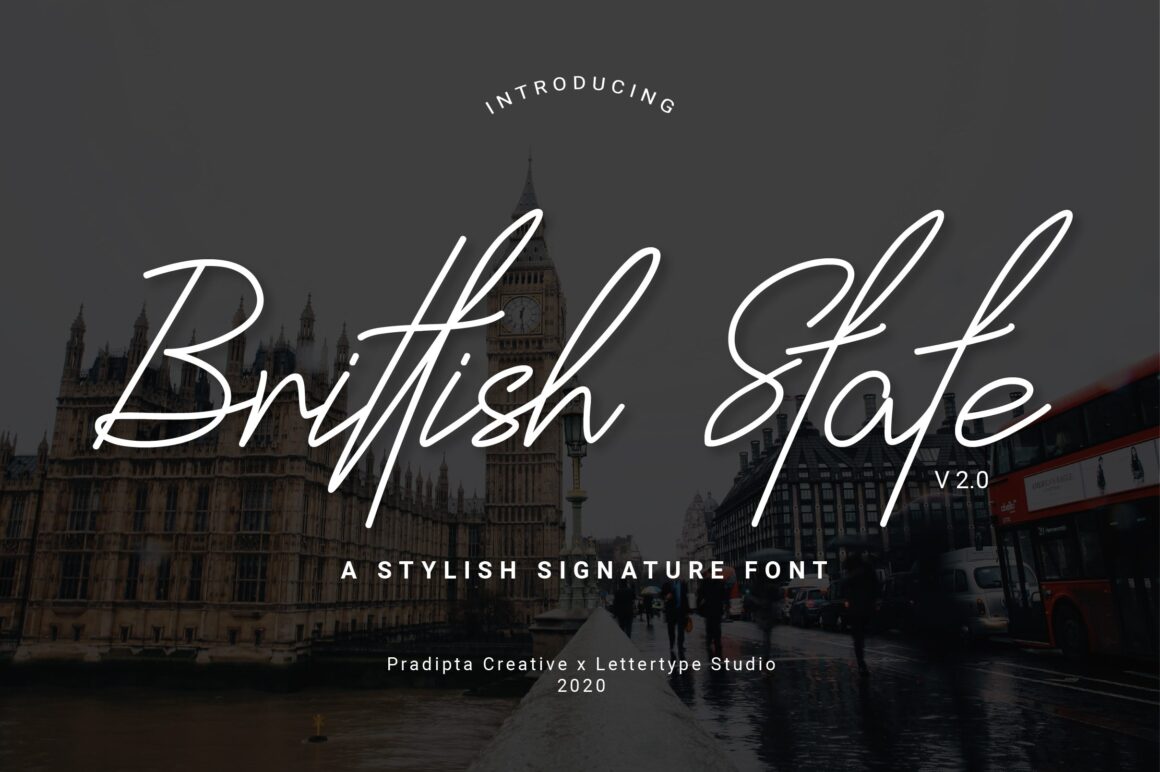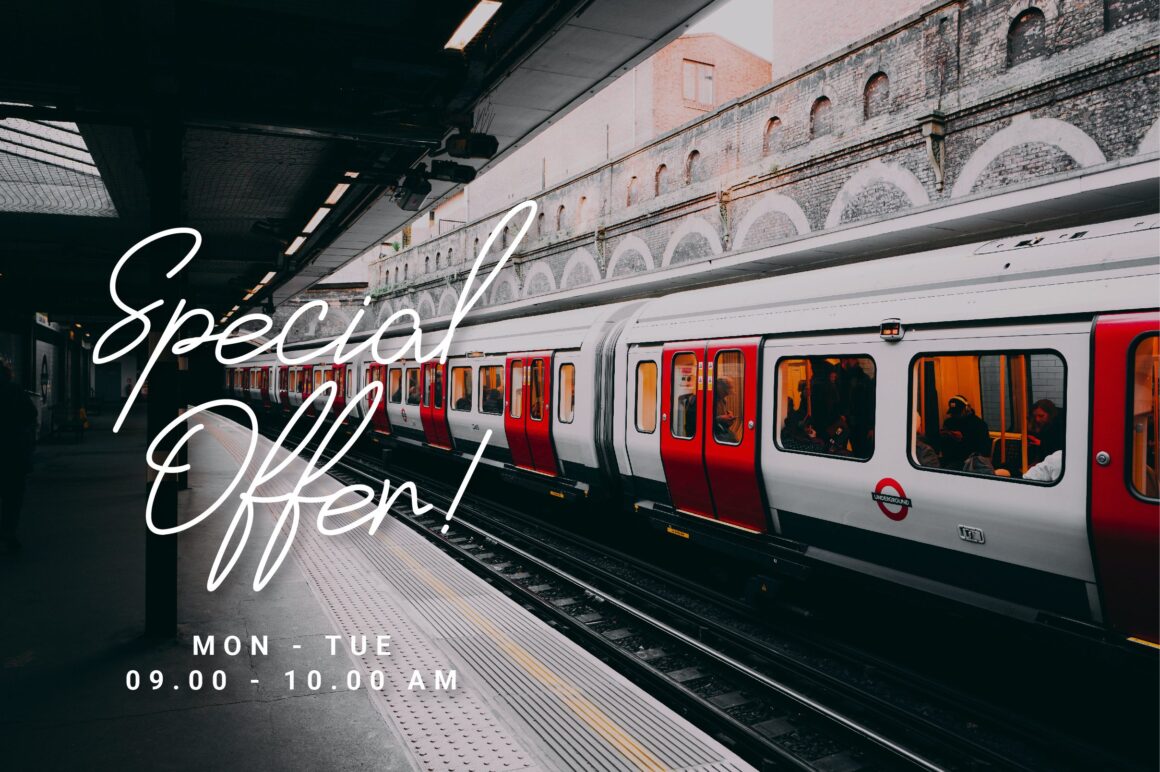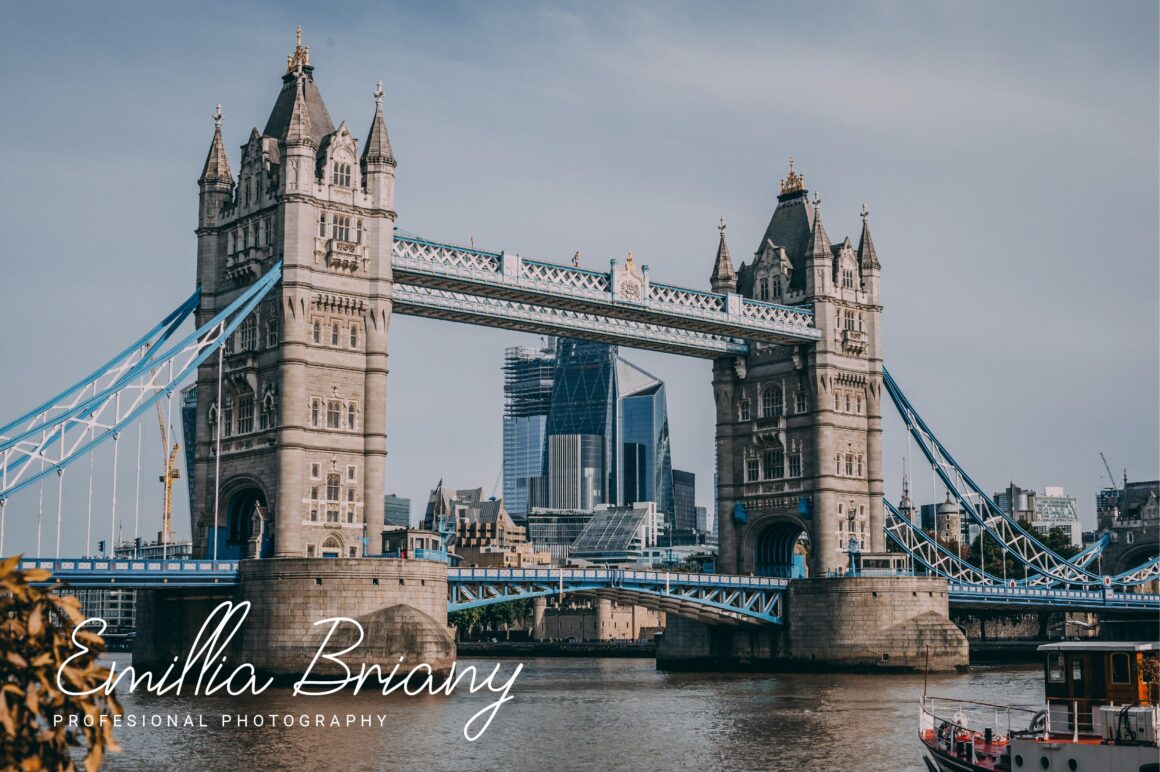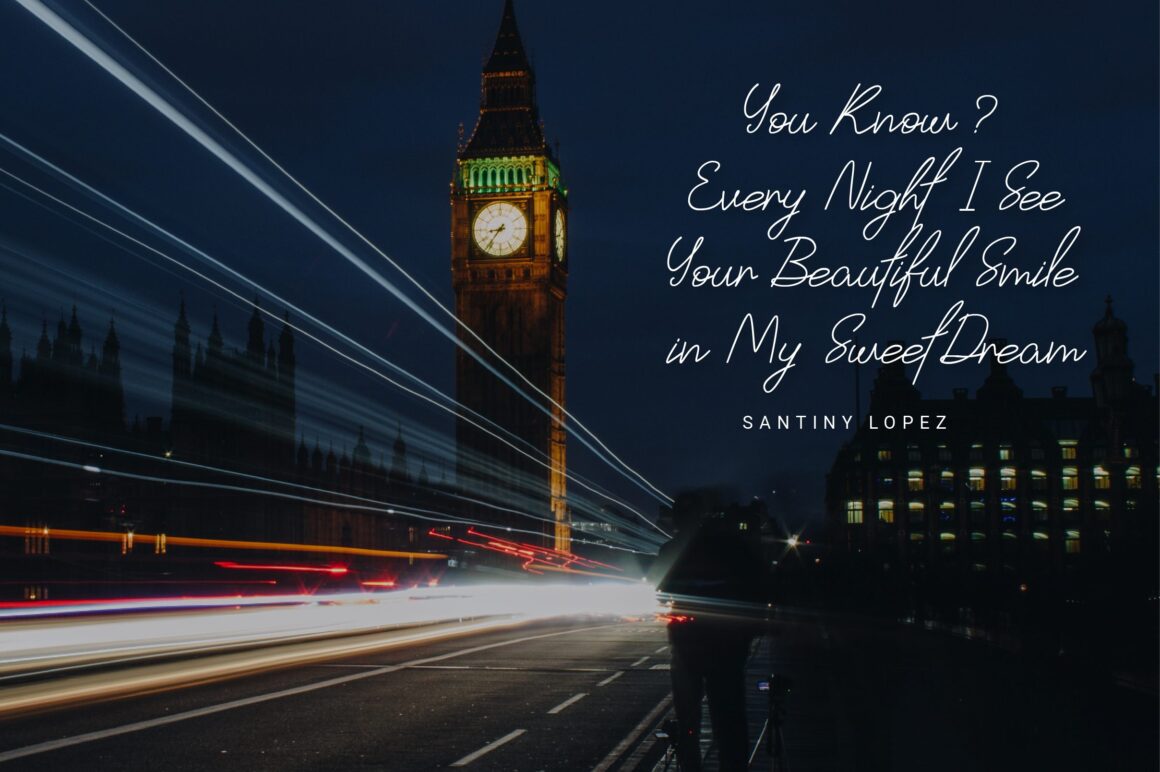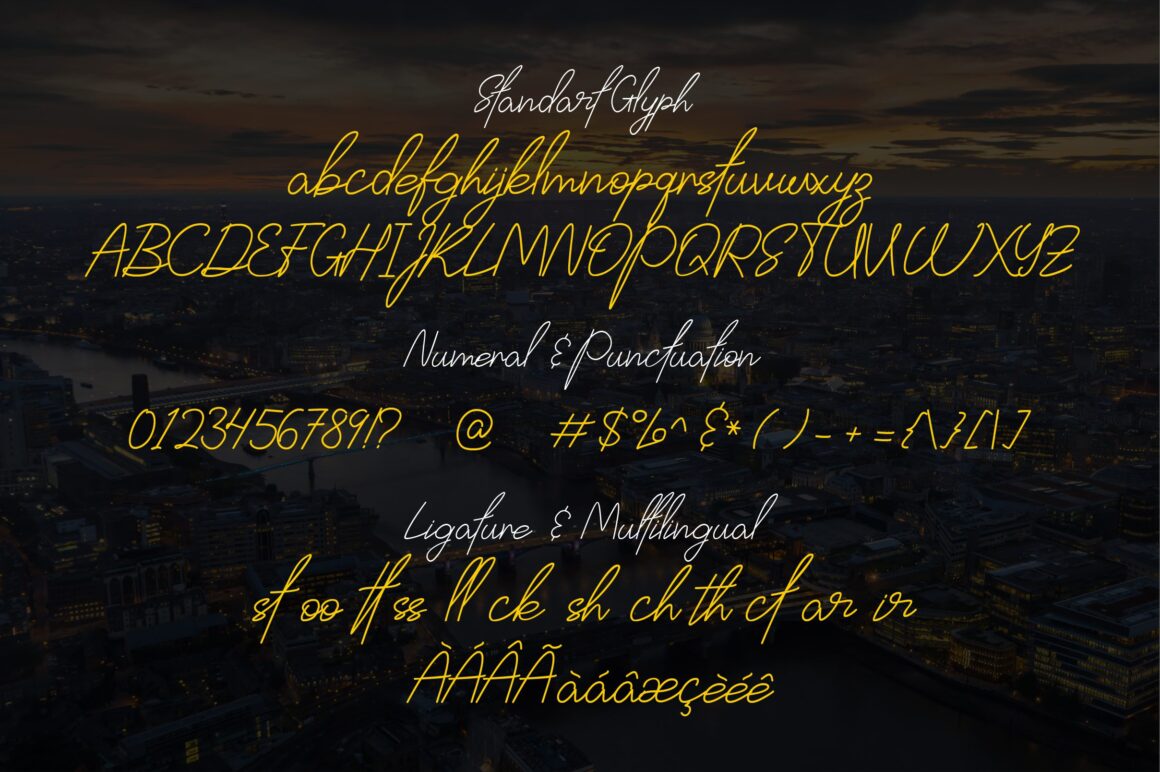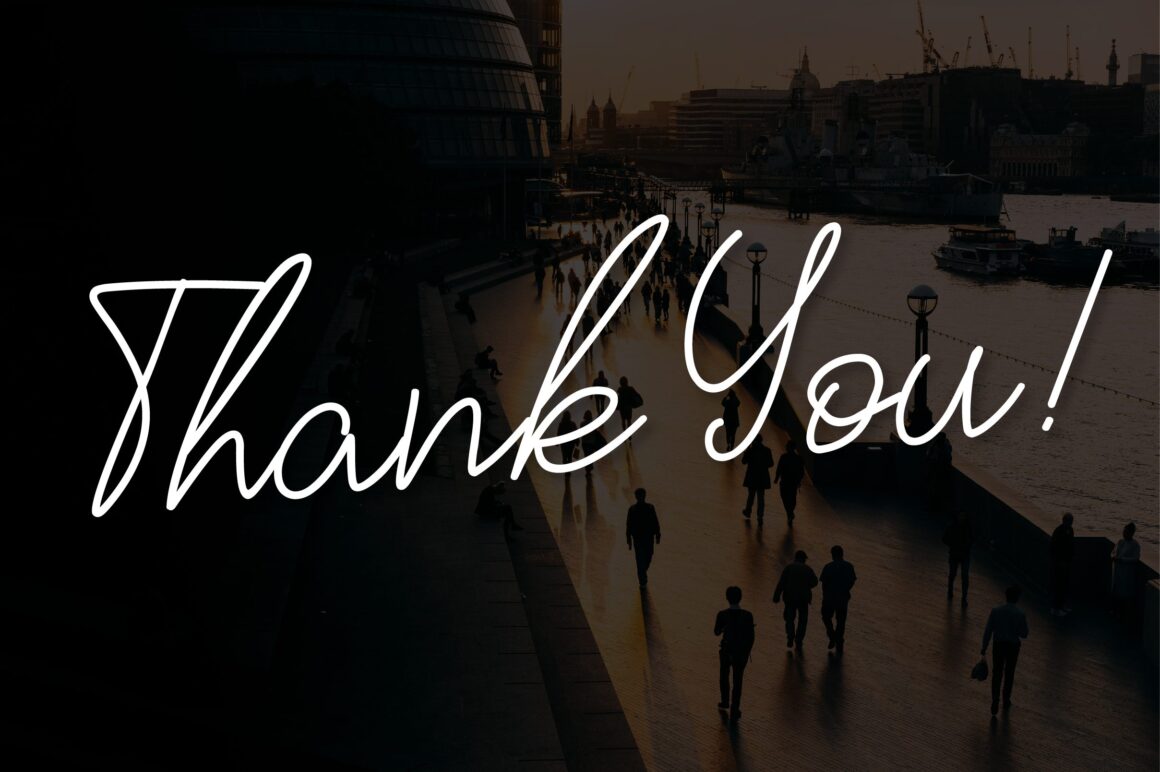
Brittish State Script is a stylish handwritten font designed with natural flow and elegant curves in every stroke. Its graceful letterforms bring a sophisticated and personal touch, making it a perfect choice for designers seeking both beauty and authenticity.
From logos, branding, and wedding invitations to social media posts, advertisements, packaging, photography watermarks, and stationery, Brittish State Script adapts seamlessly to a wide range of projects. Its handwritten taste adds charm and personality, elevating your creative work with timeless elegance.
Brittish State Features:
- 1 Styles
- Upright Only
- 169+ Languages Support